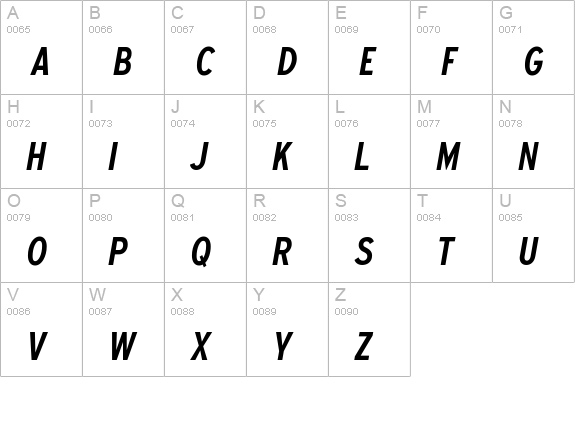
Expressway Cd Sb Italic Font Details
Expressway Cd Sb Italic is a distinctive, italic variant in the Expressway typeface family \xE2\x80\x94 well suited to design and typography projects.
Expressway Cd Sb Italic font is a modern and sleek typeface that adds a touch of sophistication to any design project. Its italic style gives a dynamic and elegant look, making it perfect for a wide range of applications such as branding, advertising, and editorial design. This font features a clean and sharp design with a distinctive personality that sets it apart from other fonts. The Expressway Cd Sb Italic font is versatile and can be used in various contexts to create eye-catching visuals. The best part is that Expressway Cd Sb Italic font is available for free download at FontsMarket.com. You can easily access this high-quality font and use it in your projects without any cost. Don't miss the opportunity to enhance your designs with the stylish and modern Expressway Cd Sb Italic font. Download it now and elevate your creative work to the next level!